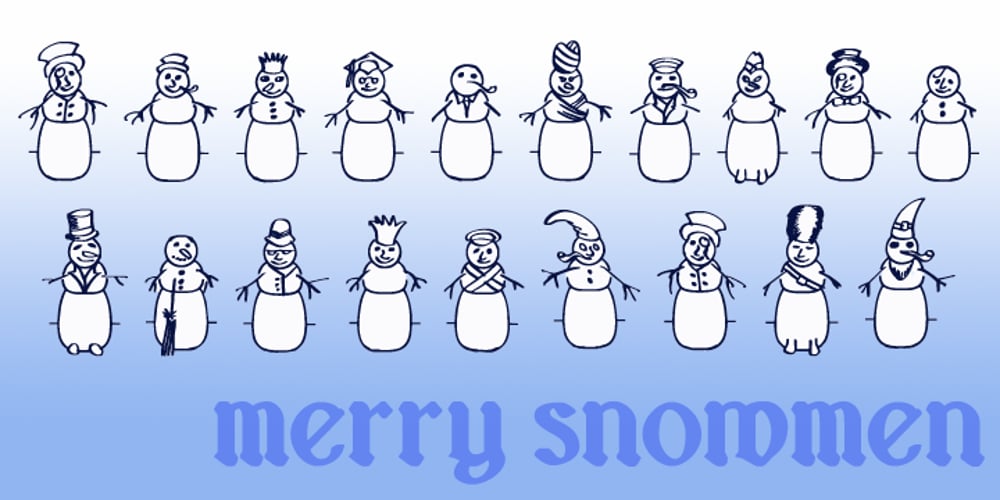
Merry Snowmen Font Family was designed by Paul James Lloyd and published by Greater Albion Typefounders. Merry Snowmen contains 1 styles and family package options. Merry Snowmen is a piece of winter fun-is a set of hand-drawn snowwmen figures, ideal for Christmas or any other time when cold and snow are about. It complements our Merry Fleurons and Christmas Fleurons faces, and is ideal for all your cards, gift labels, invitations, posters and banners.